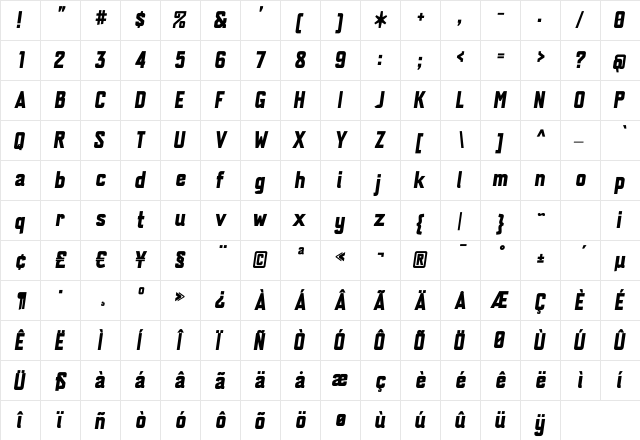
PaggioBold Oblique Regular
Design Context for PaggioBold Oblique Typeface
PaggioBold Oblique offers clean, dependable letterforms without strong stylistic allegiance, making it a practical choice for designers who need flexibility. The slanted form adds forward momentum and visual energy. The heavy weight commands attention and anchors typographic hierarchies.
Pro Tip: Use PaggioBold Oblique for emphasis, pull quotes, and subheadings where its slanted energy can add rhythm to the layout.